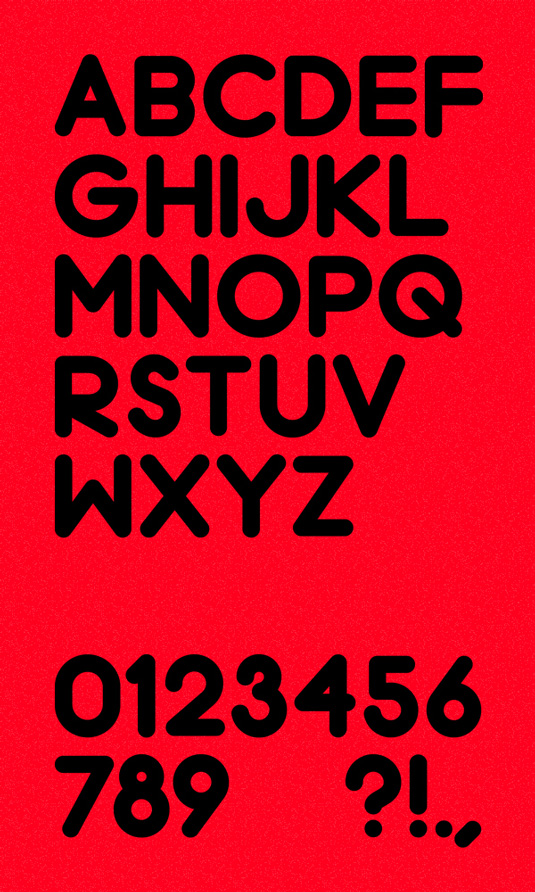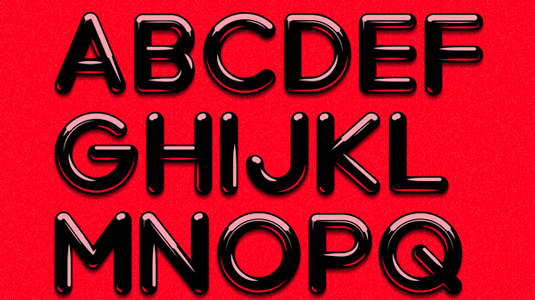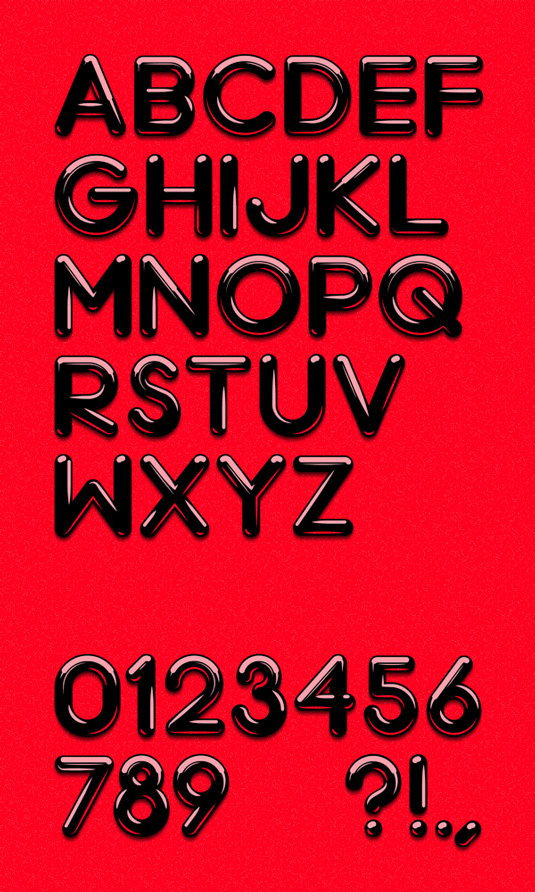
Font of the day: Chrome light
Chrome light by Artem Sukhinin
Our font of the day is Chrome light by London-based graphic designer Artem Sukhinin. Specialising in the art of typography and type illustration, he comments on his design: "Chrome light is available in two variations, Chrome and Chrome Black, with a full set of letters, numbers and four punctuation marks. The font is free and can be used for any type of graphic design - print, web, packaging and more."